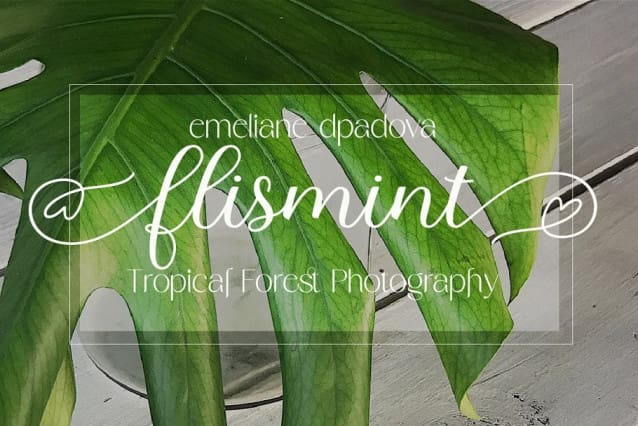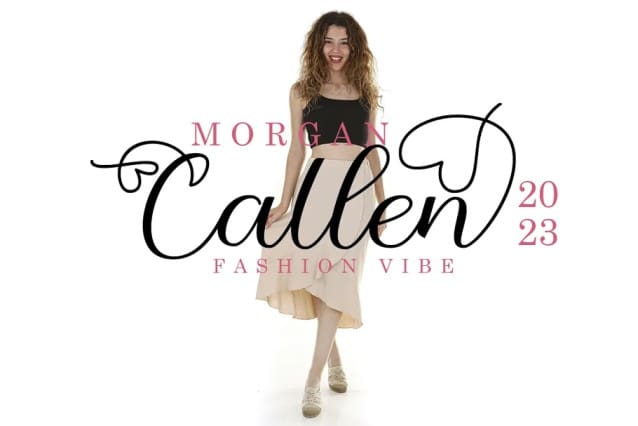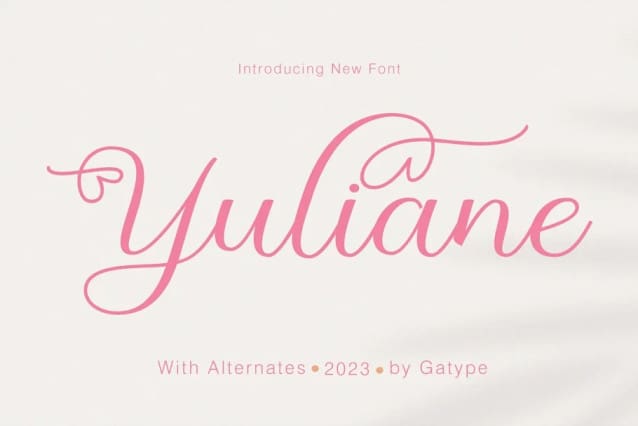
Yuliane Font
Yuliane Font is a type of font resembling a simple but elegant handwritten natural stroke. This stunning script font gives your designs a classic twist with a sleek, contemporary look. The perfect font for designs that need a modern sophistication without looking “too vintage”.